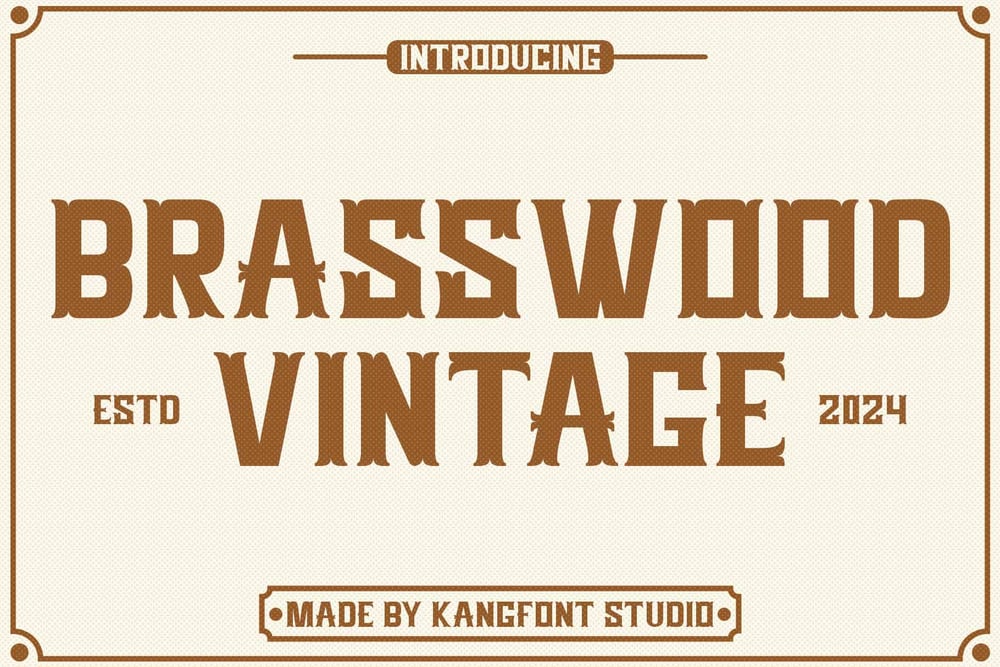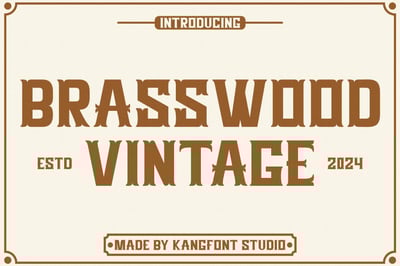
Brasswood Font Family was designed by Sur Anto and published by Kangfont Studio. Brasswood contains 1 styles and family package options. Brasswood Vintage is a classic font with a strong retro vibe. This typeface features bold and sturdy design elements, exuding a masculine and elegant feel. It’s perfect for a variety of design purposes, such as logos, labels, packaging, posters, and projects that require a vintage aesthetic.